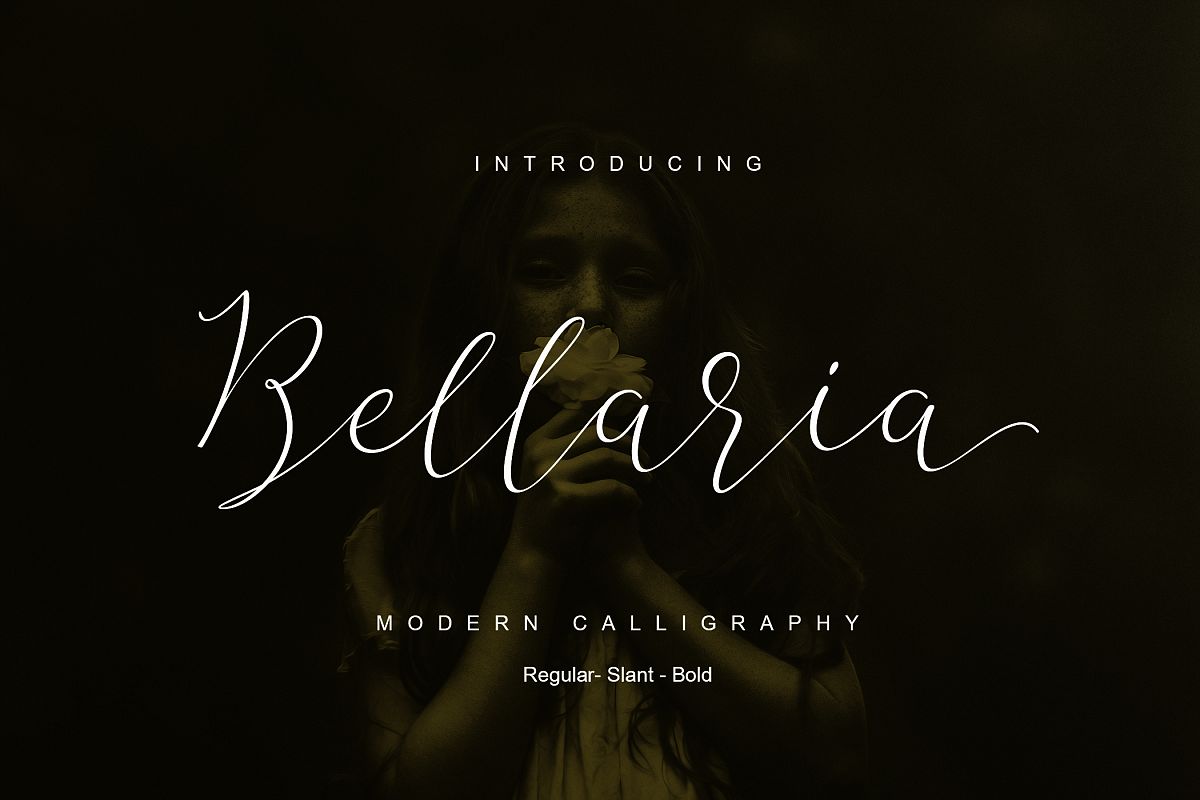
The Bellaria Script
The Bellaria Script is handwritten stylish copperplate calligraphy fonts, combines from copperplate to contemporary typeface with a dancing baseline, classic and elegant touch. Can be used for various purposes.such as headings, signature, logos, wedding invitation, t-shirt, letterhead, signage, lable, news, posters, badges etc.
Introducing The Bellaria Script
The Bellaria Script a new fresh & modern script with a handmade calligraphy style, decorative characters and a dancing baseline! So beautiful on invitation like greeting cards, branding materials, business cards, quotes, posters, and more!!
The Bellaria Script come with 549 glyphs. The alternative characters were divided into several Open Type features such as Swash, Stylistic Sets, Stylistic Alternates, Contextual Alternates. The Open Type features can be accessed by using Open Type savvy programs such as Adobe Illustrator, Adobe InDesign, Adobe Photoshop Corel Draw X version, And Microsoft Word. And this Font has given PUA unicode (specially coded fonts). so that all the alternate characters can easily be accessed in full by a craftsman or designer.
The Bellaria Script : Uppercase & Lowercase International Languange & Symbols Support Punctuation & Number PUA Unicode Range Standard Stylistic Alternates Stylistic Set 1-16 Character Variant Contextual.